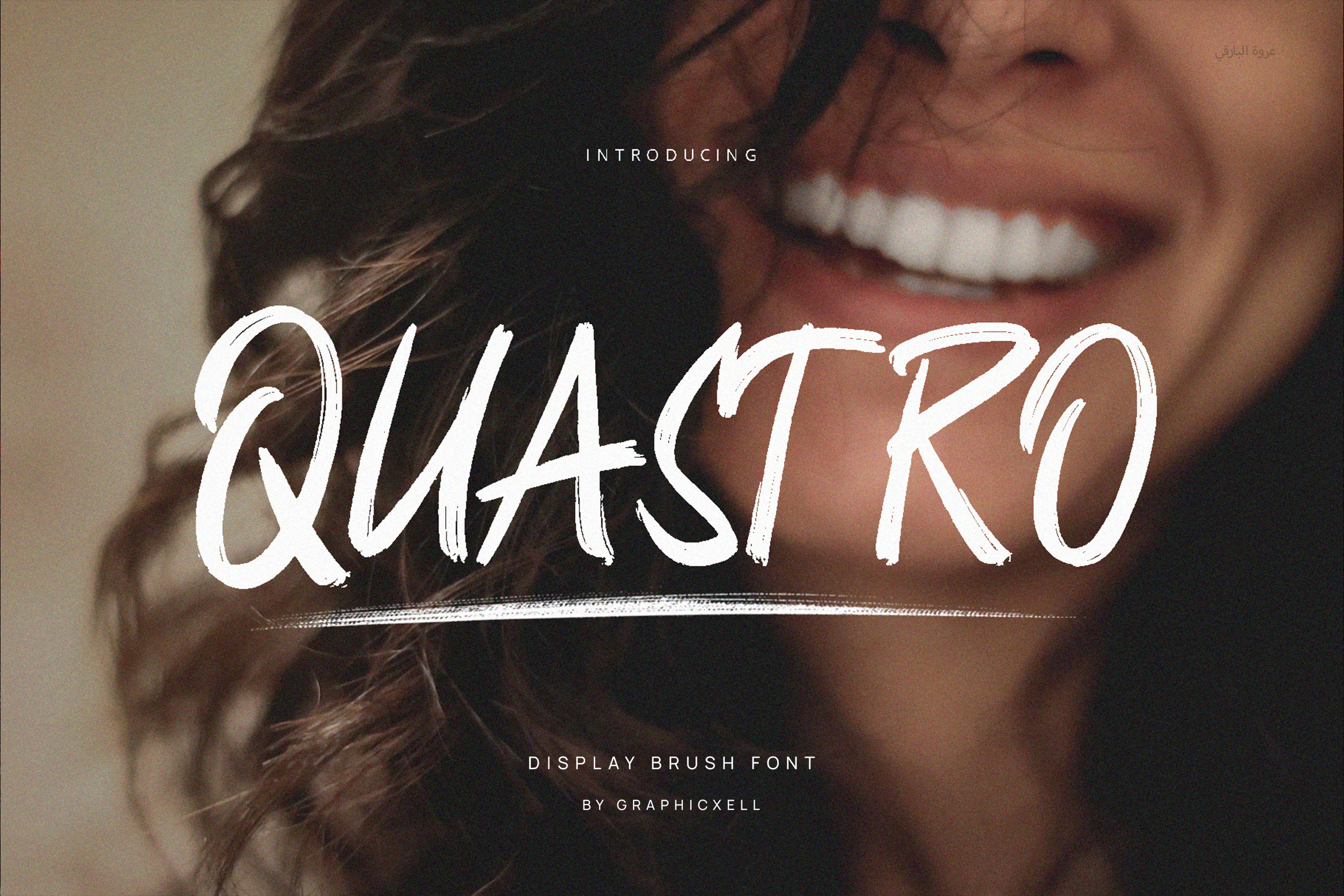
Quastro Brush Font
Quastro Brush Font is a kind of font that comes with a supercharged brush style. It is a street-bursting font with noticeable energy. This special font focuses on quick strokes. Besides that, the sharp details make it much more attractive. Anyway, if you are a designer, blogger, or publisher, you will often need this font. The first time you see it, you will be captivated by its natural brush writing style. Each curve of the letters is really distinctive. As you can see, the ligature is very simple. But that’s what makes it easy to read without reducing its uniqueness. Furthermore, Quastro Brush Font is suitable for various uses such as digital media, events, logos, prints, advertising, branding, logos, logotype, headline, hoodies, t-shirts, webs, clothing, titles, and other challenging jobs. Because of its uniqueness and distinctiveness, this font is very noticeable and grabs attention easily. So, don’t hesitate to use this font for your work. With an informal style, this font is very flexible in use. It works very well when you combine it with other font styles. What makes this font aesthetic typography a good choice is the classy look. Its unique touch also makes it much more impressive so that it is easy to grab your audience’s attention. No matter what it is for, Quastro Brush Font will never disappoint you. It is really recommended for anyone who wants to add a sophisticated touch to their project.